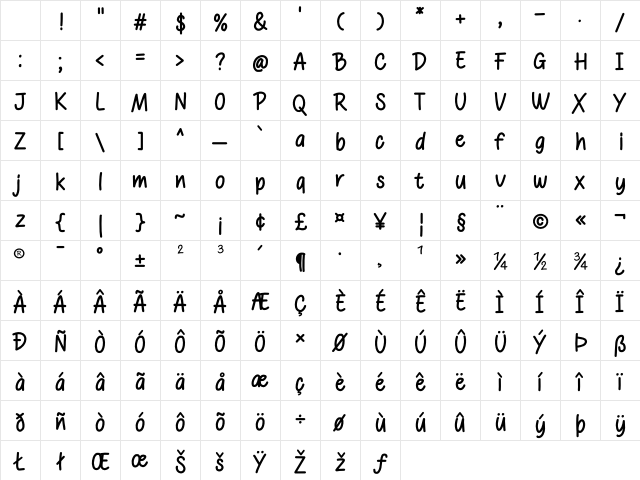
Complete Written Good Regular glyph index. Displaying only characters natively supported by Written Good Regular font.
Written Good is a composed and adaptable typeface that performs quietly and consistently across a wide range of design contexts.